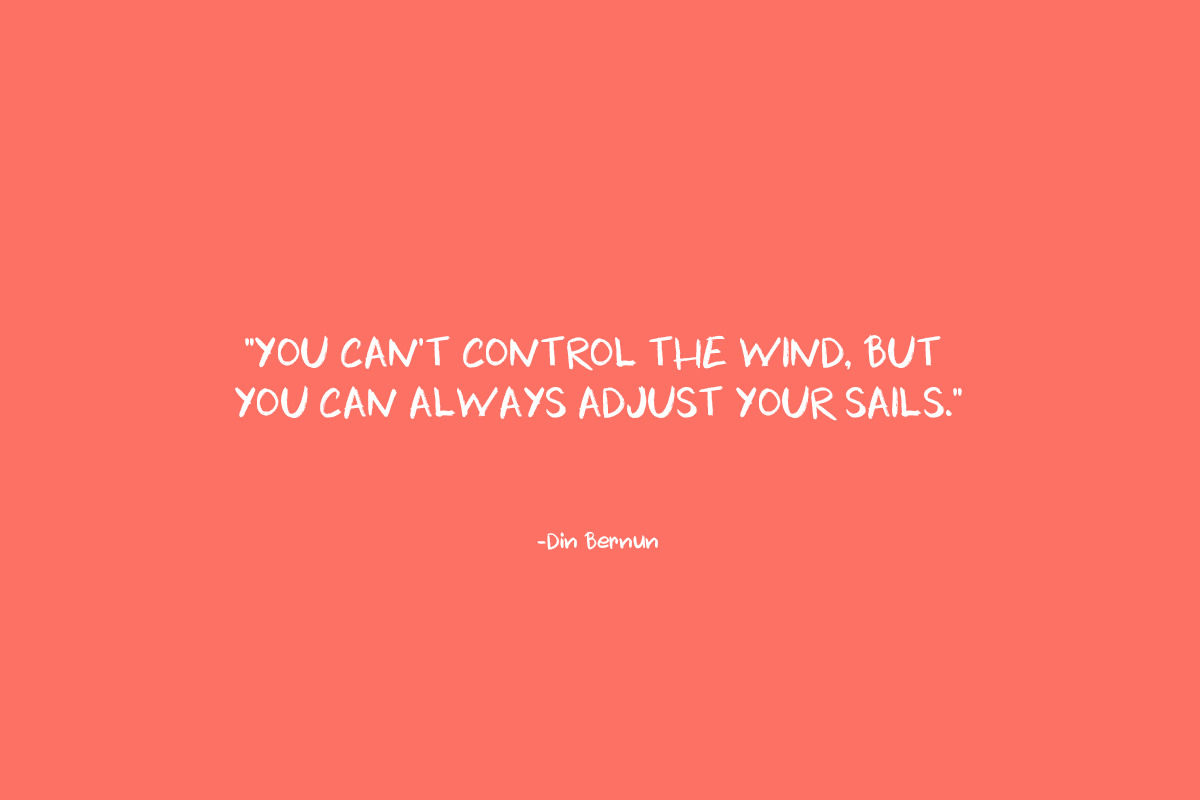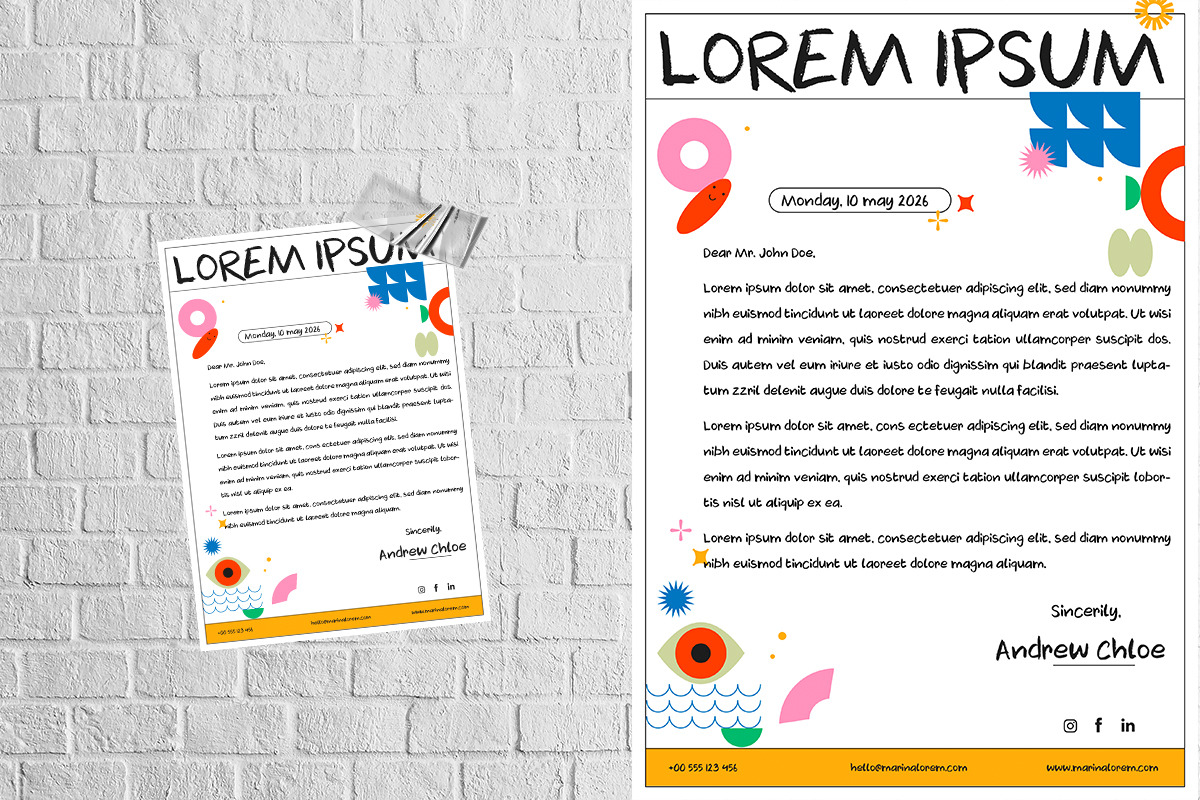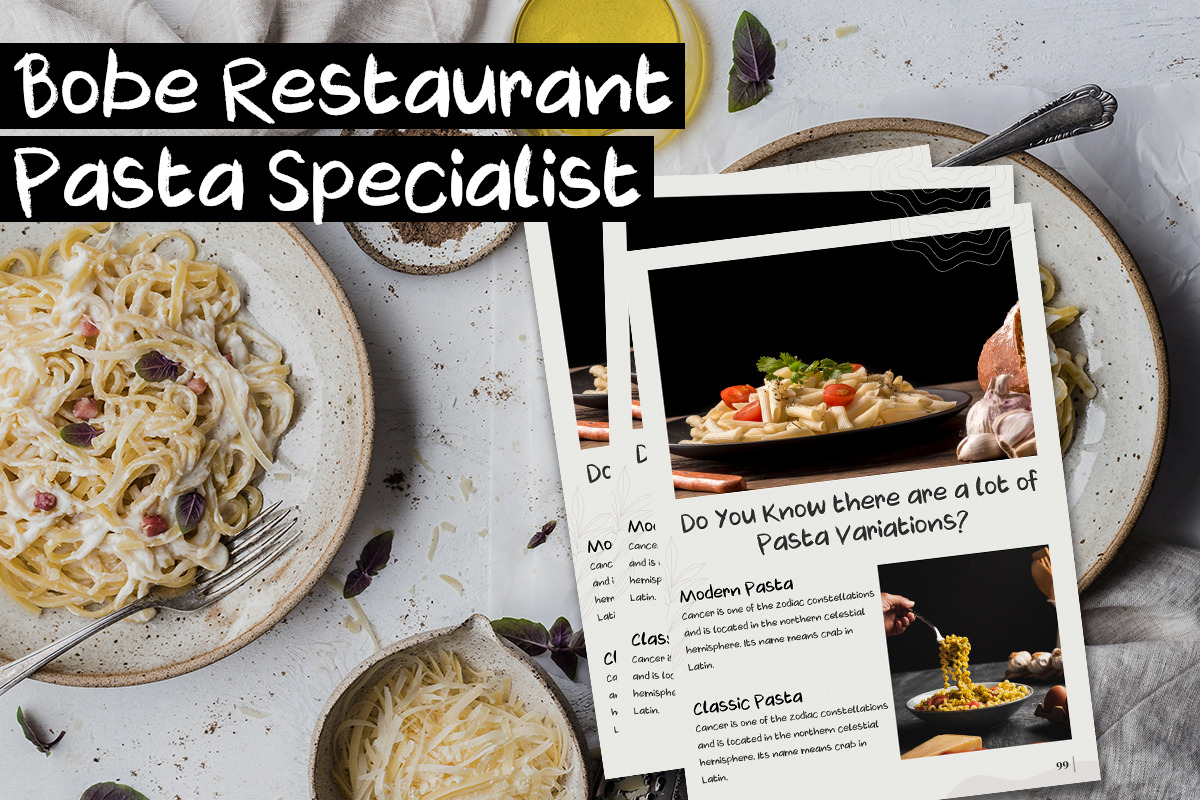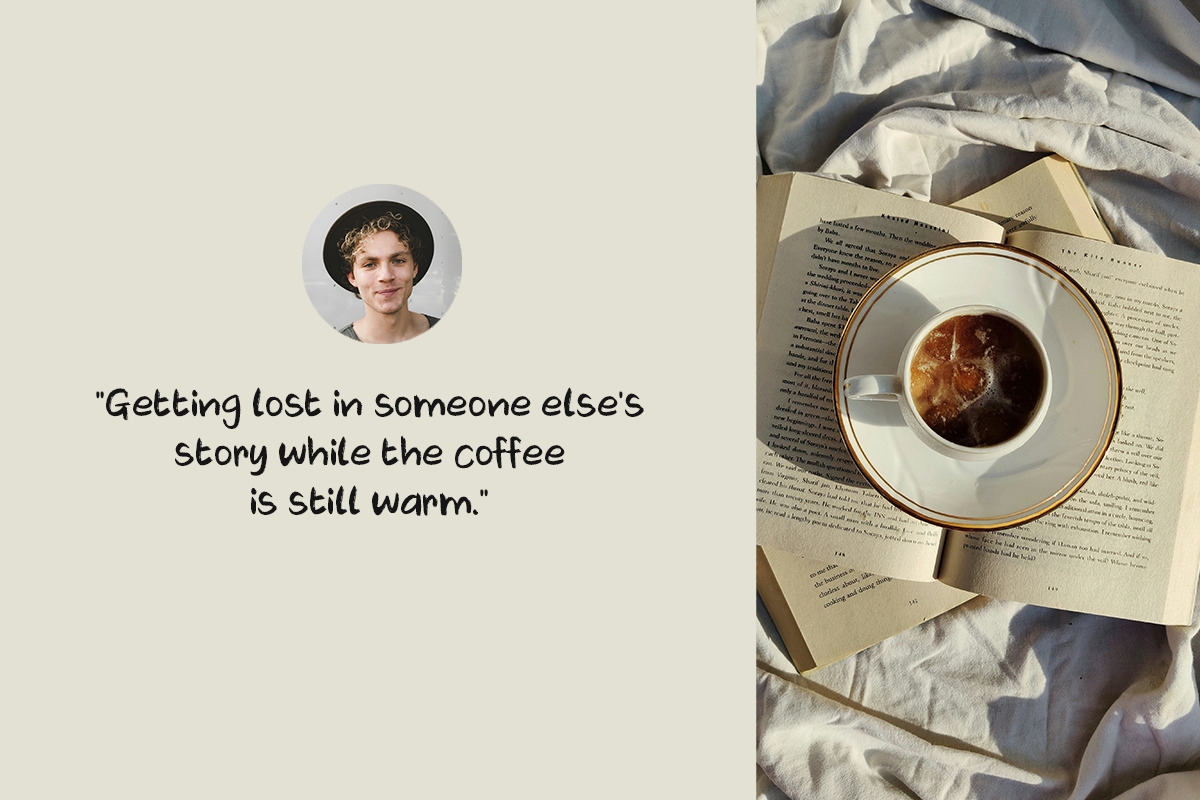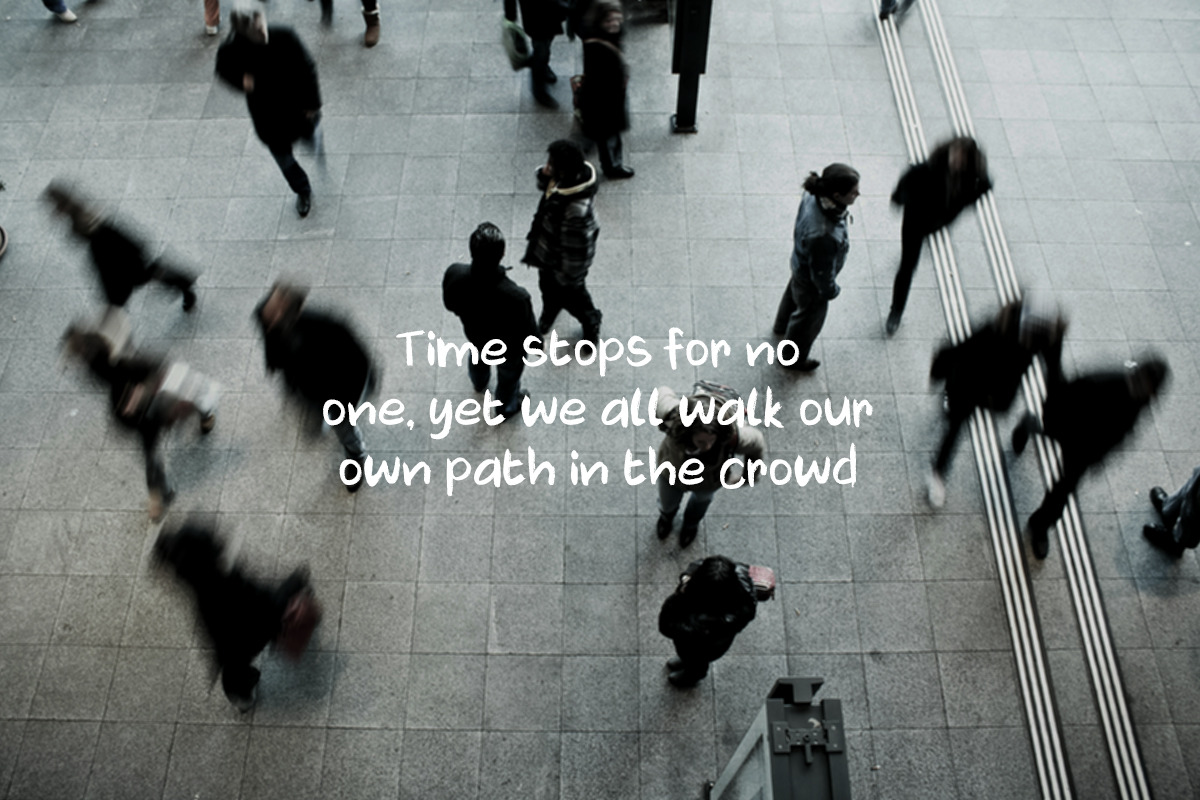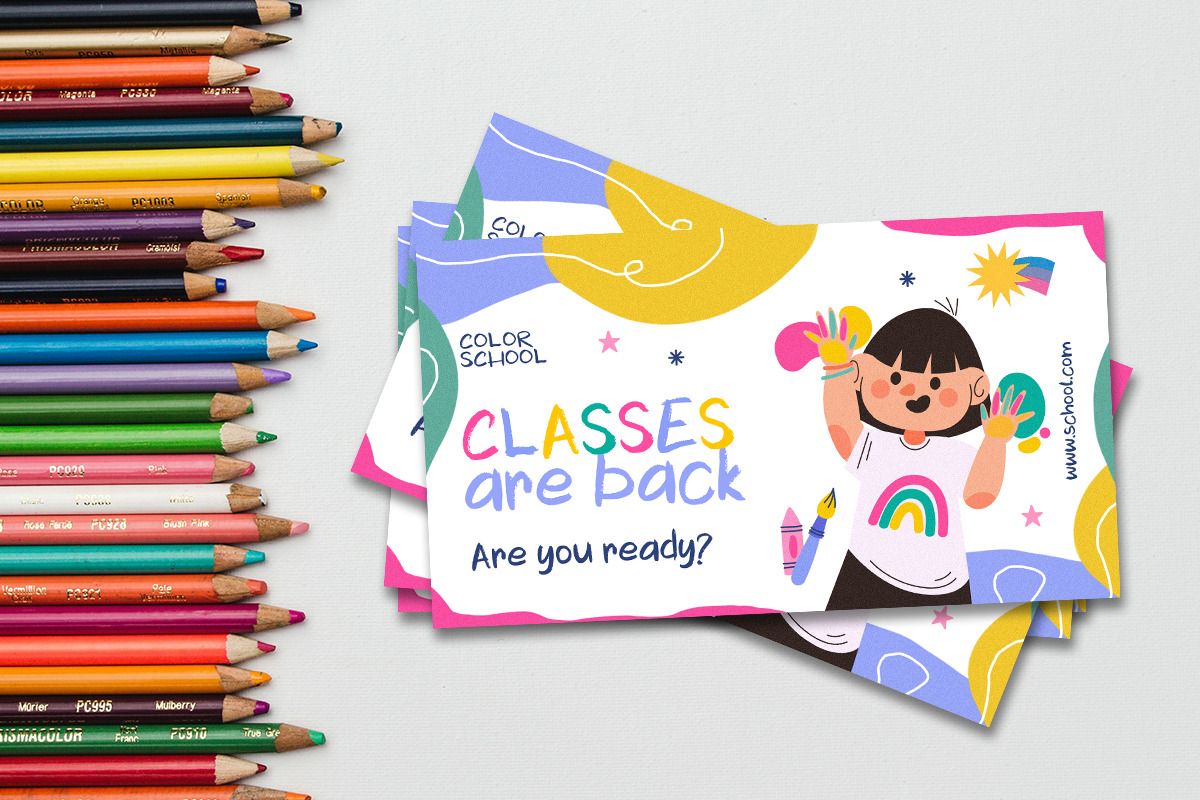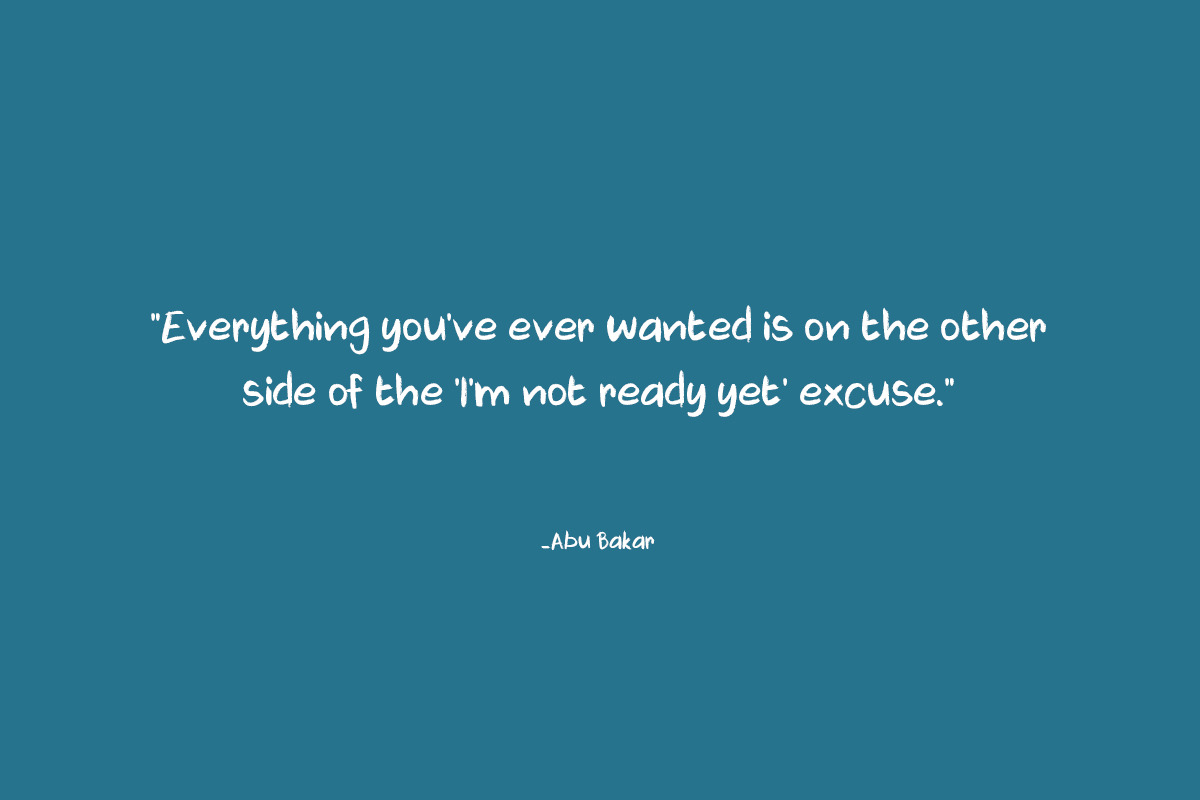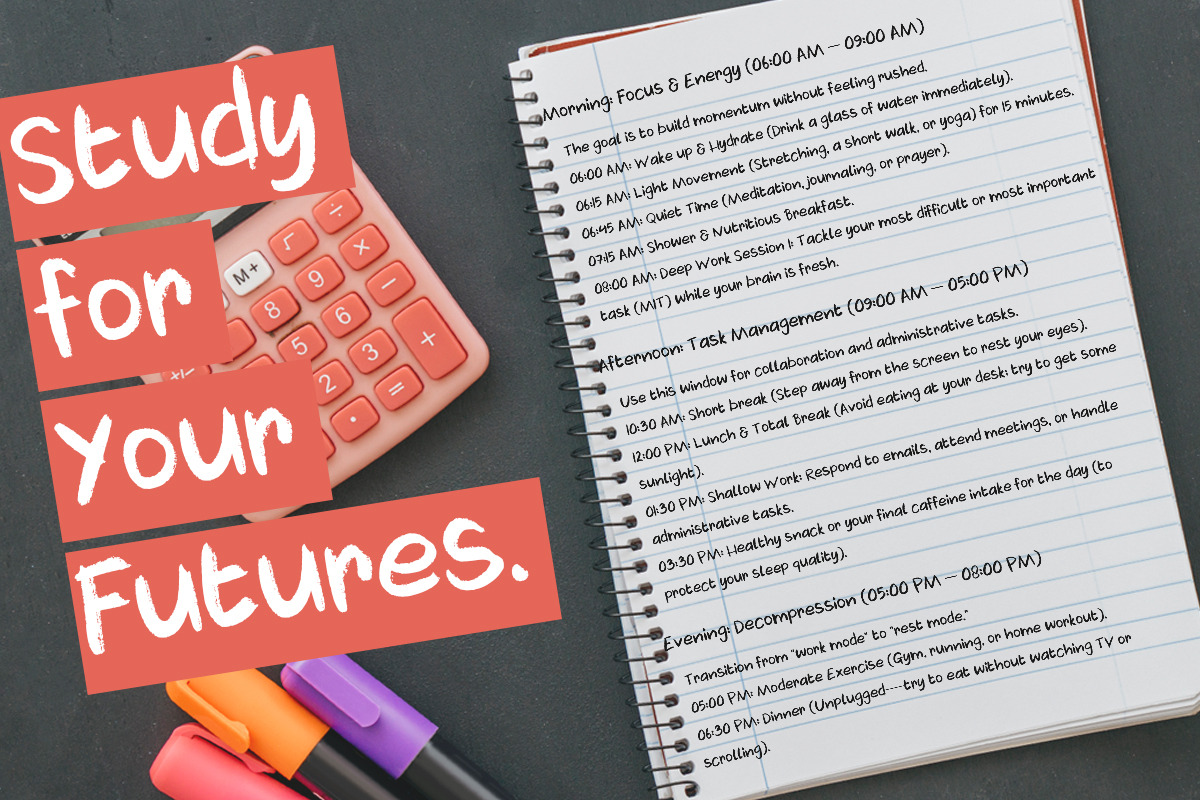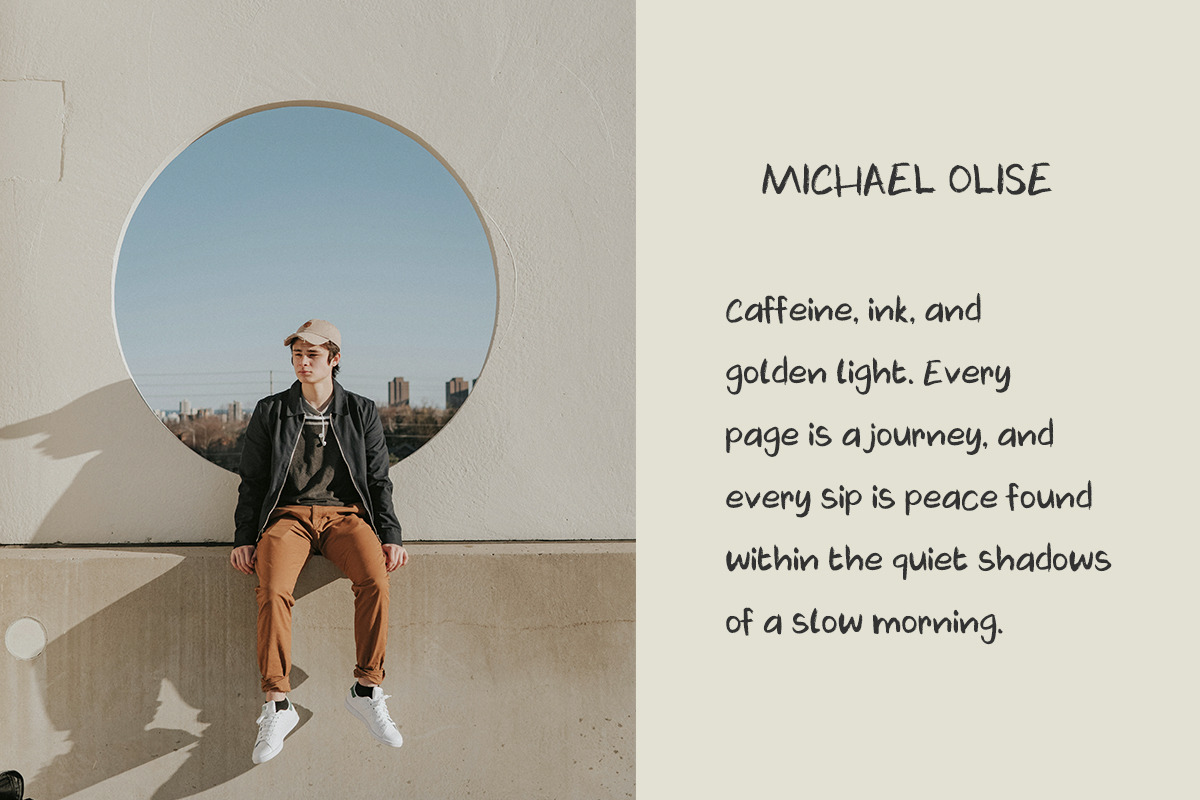
The Scrumble Handwritten
The Scrumble – A Playful & Authentic Hand-Lettered Font
Inject a dose of personality into your designs with The Scrumble. This hand-lettered font is designed to capture the raw, charming imperfection of natural handwriting. With its bold strokes and friendly curves, it strikes the perfect balance between casual creativity and modern aesthetics.